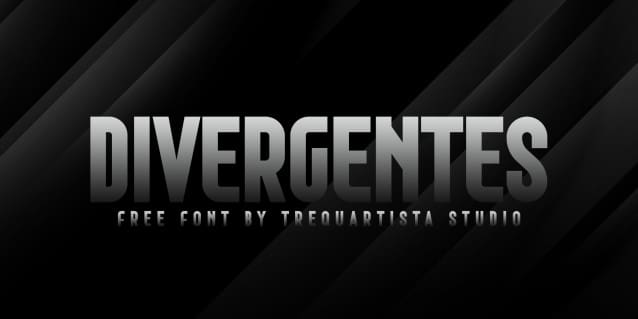
Divergentes Font
Divergentes Font, is a sans serif  stunning when combined or separately. This sans serif font style is legible and stunningly designed.